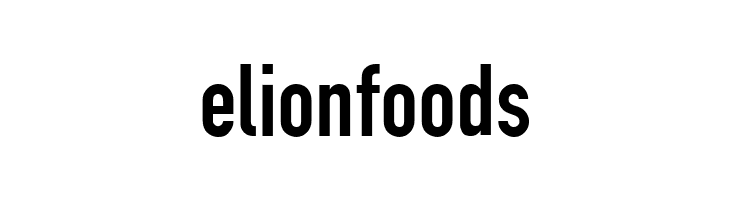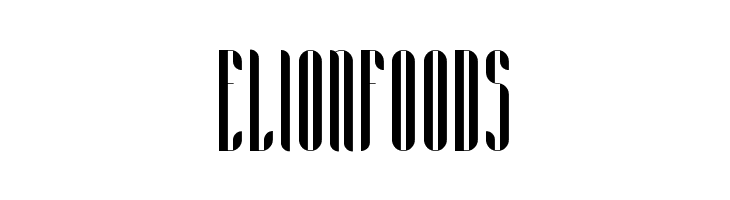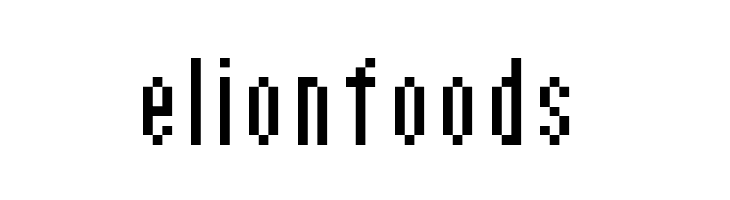
A modern, condensed font with excellent readability and a professional appearance.
A modern, condensed sans-serif font with a clean and professional look.
A bold, condensed font with tall, narrow letterforms and minimal spacing.
A modern, compressed font with a sleek and uniform design.
A modern, condensed font with bold, uniform strokes and high legibility.
A modern, condensed sans-serif font with a light weight and geometric design.
Ornate, decorative uppercase font with intricate designs.
A pixelated, condensed font with a retro digital style.
A playful, bold font with rounded edges and thick strokes.
A bold, condensed font with a modern, geometric style.